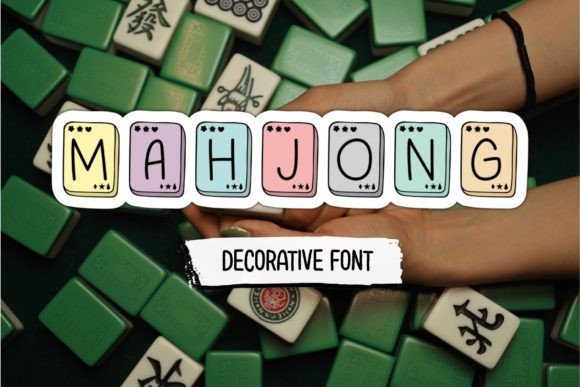
Looking to add a touch of elegance and creativity to your designs? Look no further than Mahjong Font, the ultimate choice for game design enthusiasts and creative individuals alike. Created by the talented team at 18CC FONTs, this stunning decorative font is guaranteed to elevate your projects to new heights.
With its intricate details and unique style, Mahjong Font is the perfect companion for all your design needs. Whether you're working on a logo, branding materials, or even social media graphics, this font will effortlessly breathe life into your creations. Its captivating curves and eye-catching elements will make your designs stand out from the crowd, leaving a lasting impression on your audience.
Crafty DIY projects have never been more exciting with Mahjong Font by your side. Let your imagination run wild as you incorporate this versatile font into your handmade creations. From personalized greeting cards to stunning scrapbook pages, this font will add that extra touch of charm and sophistication, making your projects truly one-of-a-kind.
But the beauty of Mahjong Font doesn't stop there. Its versatility extends beyond traditional design projects. Create mesmerizing posters for game nights, captivating book covers, or even striking advertisements that demand attention. The possibilities are endless, and with Mahjong Font, your creativity knows no bounds.
We understand that finding the perfect font can be a daunting task, but rest assured, Mahjong Font has got you covered. Its rich collection of characters, symbols, and ligatures ensures that you have all the tools you need to bring your vision to life. Plus, its seamless compatibility with popular design software makes the integration process a breeze.
Don't settle for ordinary fonts when you can have the extraordinary. Mahjong Font is here to redefine your design journey. Are you ready to embark on a visual adventure like no other?